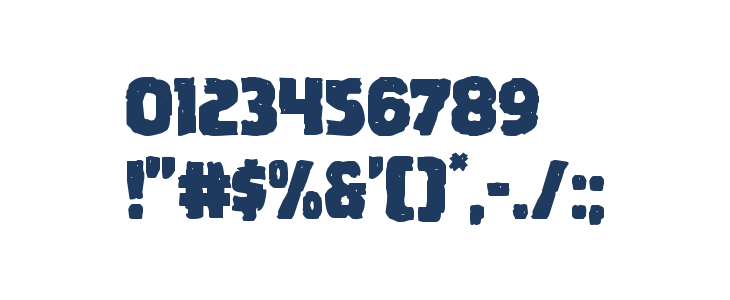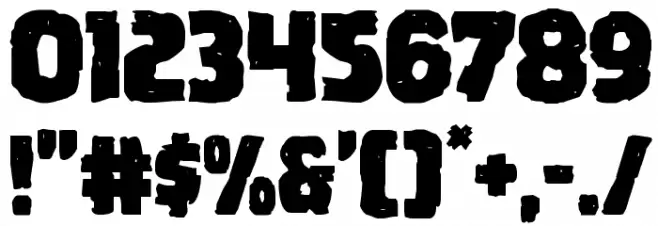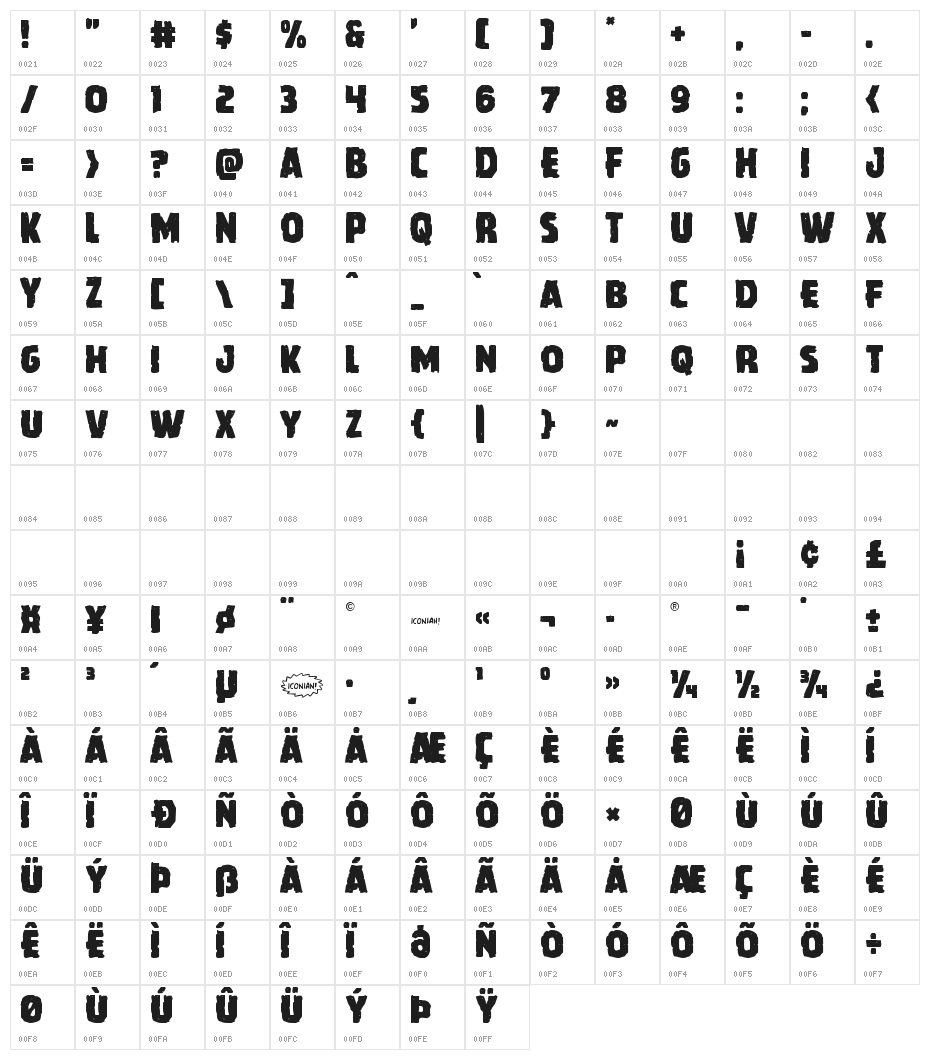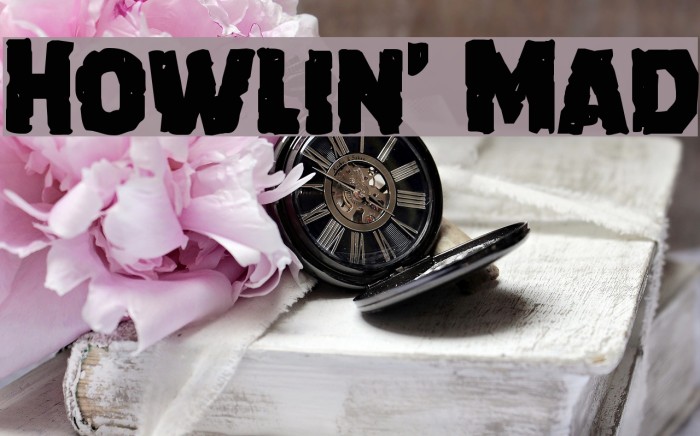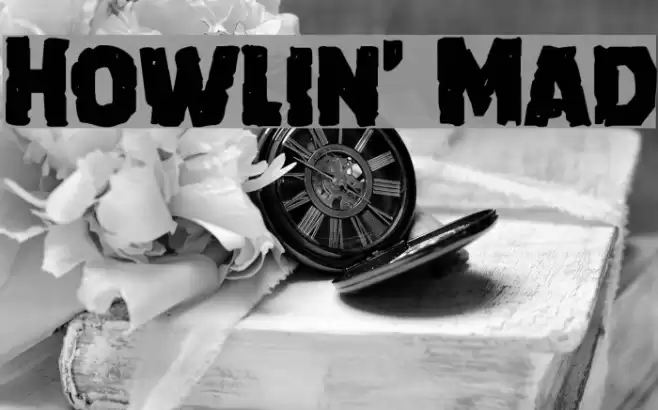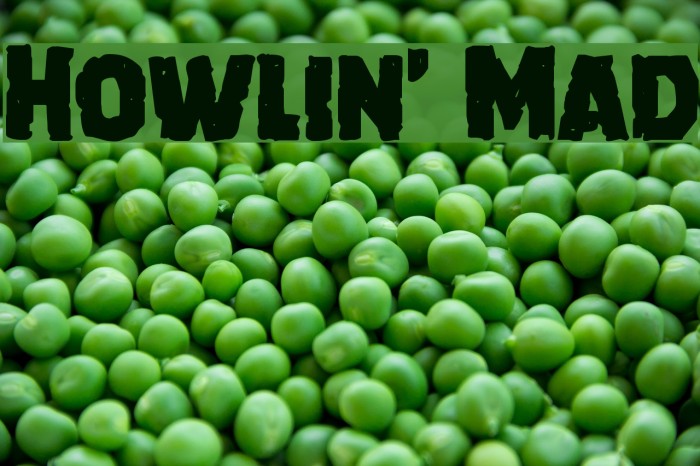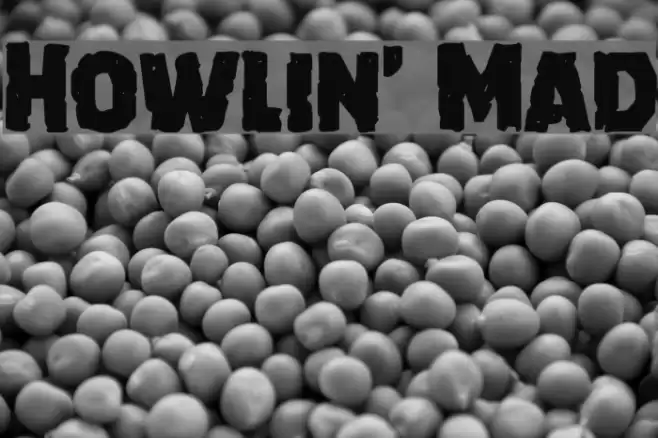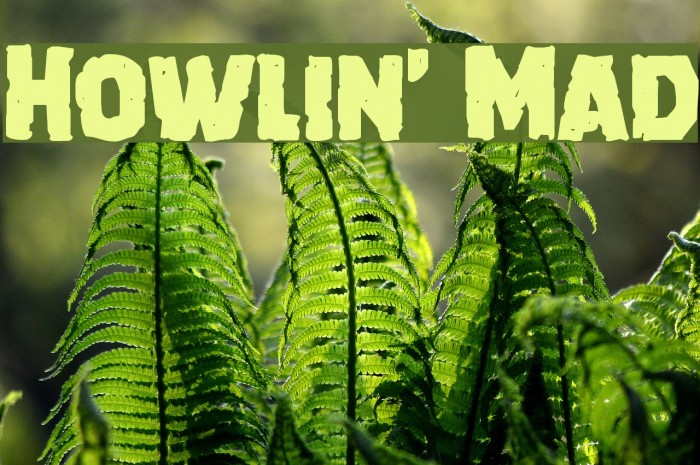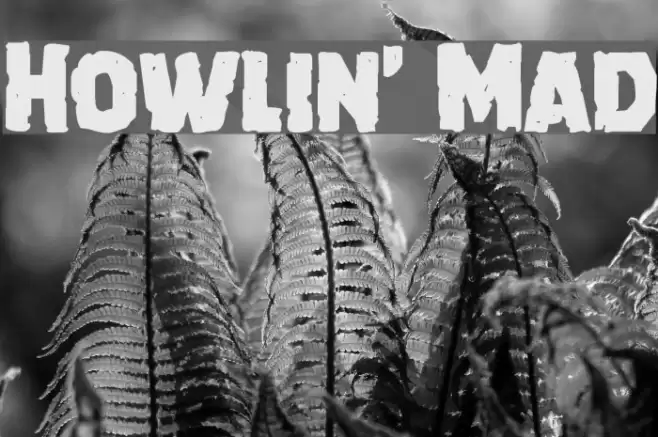
Howlin' Mad Font
Howlin' Mad Description
This font features a bold and rugged design with a distressed, grunge-like appearance. The characters are heavily textured, giving them a worn and weathered look, reminiscent of vintage or industrial styles. The strokes are thick and uneven, adding to the font's raw and edgy aesthetic. This style is perfect for creating a strong visual impact, making it suitable for designs that require a bold statement. The uppercase and lowercase letters maintain a consistent style, with numbers and special characters following the same distressed theme.
| Overall Style | Vintage, Industrial |
| Proposed Projects | Ideal for posters, album covers, branding for edgy or alternative products, and any project needing a strong, impactful design. |